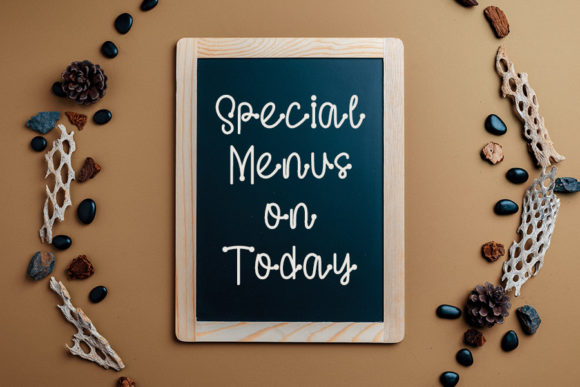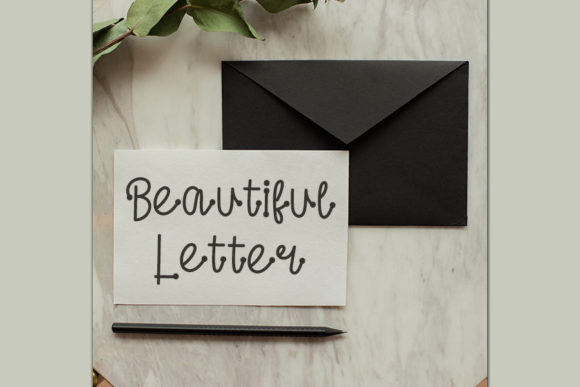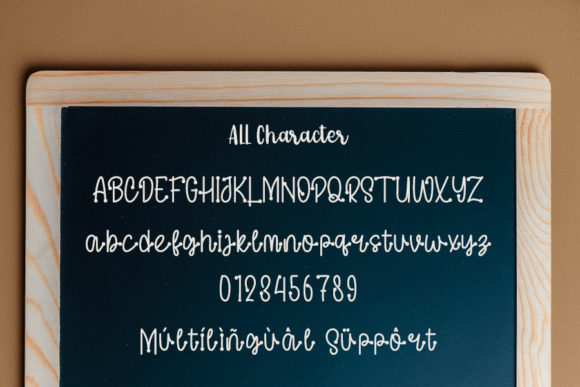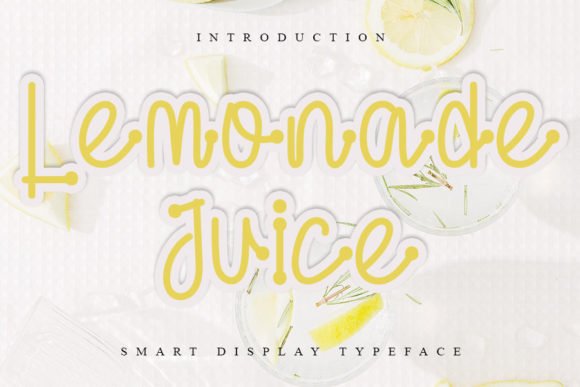
Introduction to Lemonade Juice Font
Lemonade Juice is a lovely and delicate handwritten font that exudes elegance and class.
This font was particularly crafted for those who need a beautiful and refreshing look to their designs .
Key Features of Lemonade Juice Font
Why Choose Lemonade Juice Font?
Lemonade Juice Font offers exceptional quality and versatility, making it a valuable addition to your design toolkit. Whether you’re creating for personal projects or commercial use, Lemonade Juice Font delivers professional results.